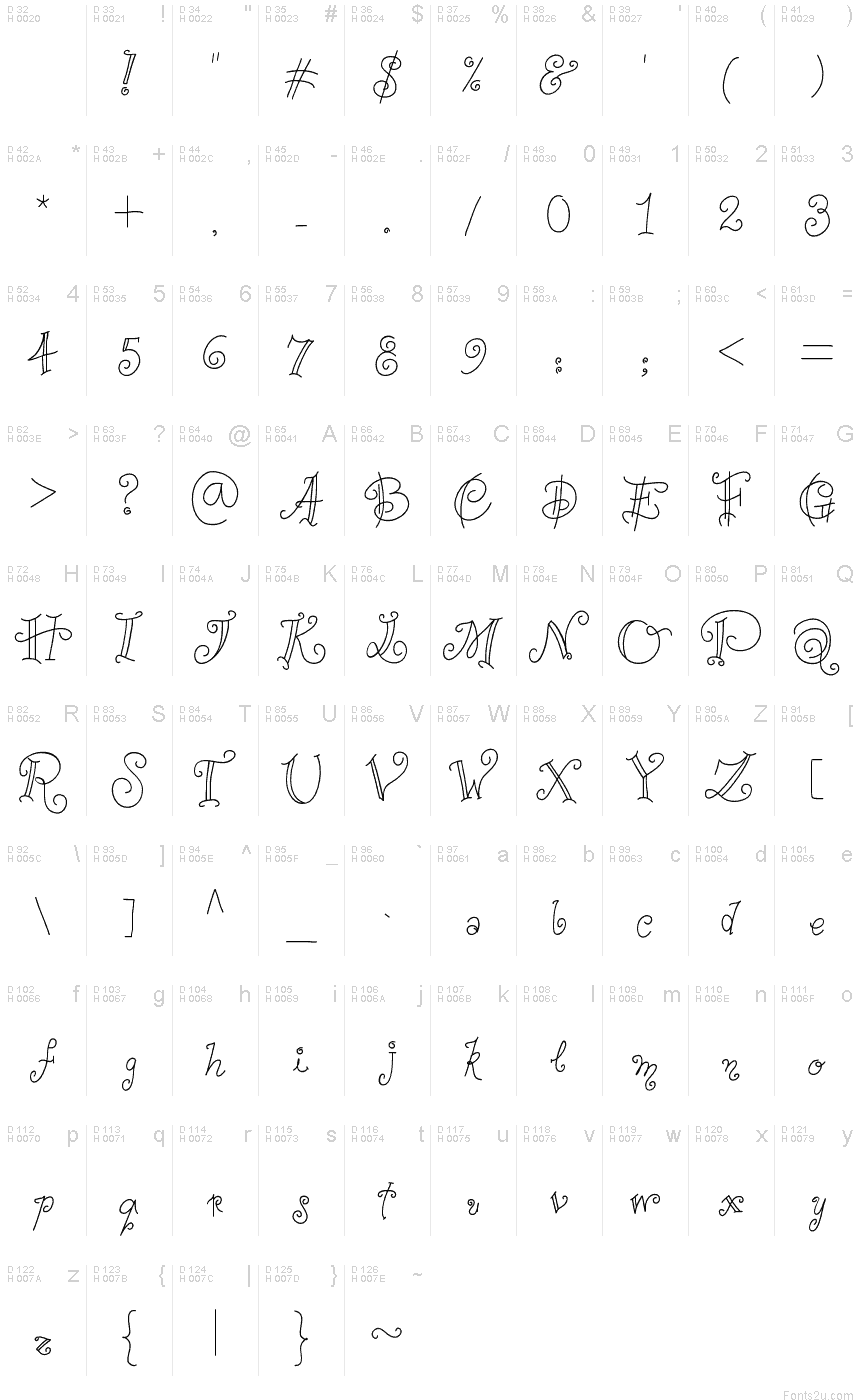
Ana Perestrelo by Ana Paula Perestrelo is a free curly display font with decorative pen flourishes. Its hairline strokes loop beyond the letters, forming tall hooks, deep curls, and sweeping crossbars. Airy forms carry dense ornament.
A boutique fashion label or perfume brand could use it for packaging and campaign graphics with theatrical elegance. On invitations and music posters, the oversized flourishes can become a border or ornamental emblem rather than neutral text.